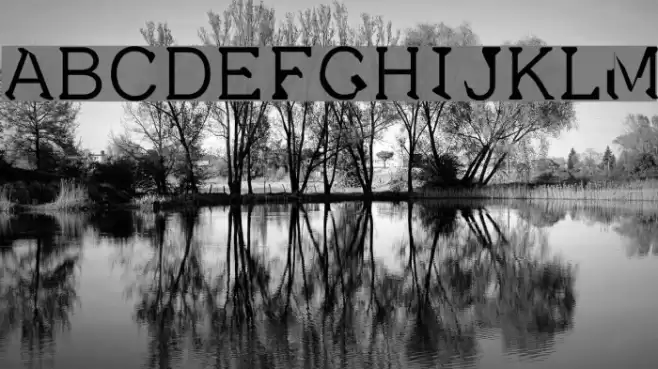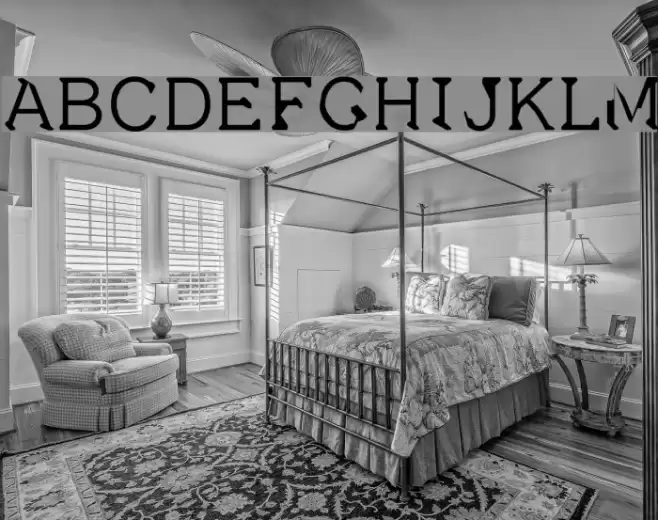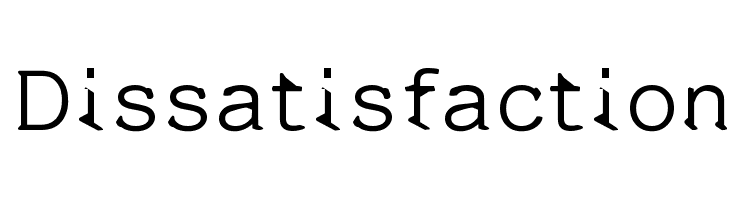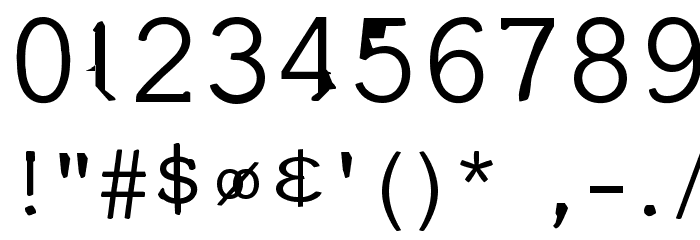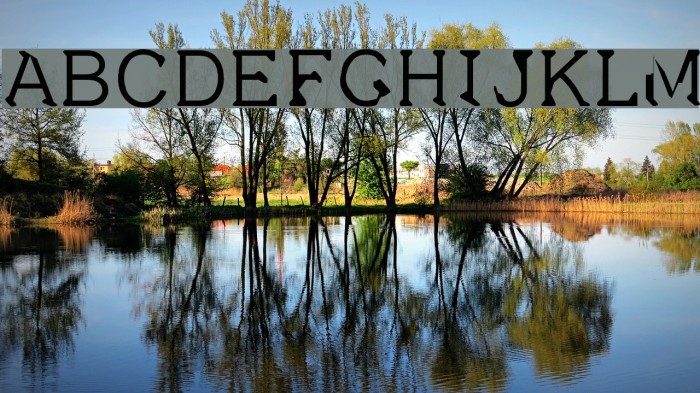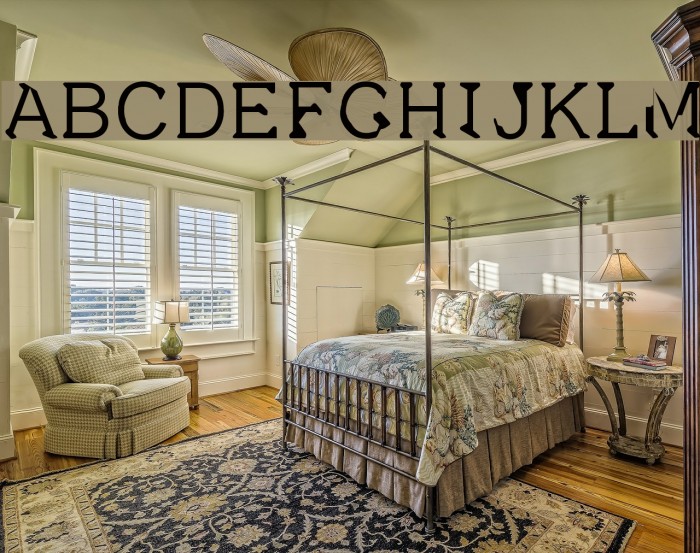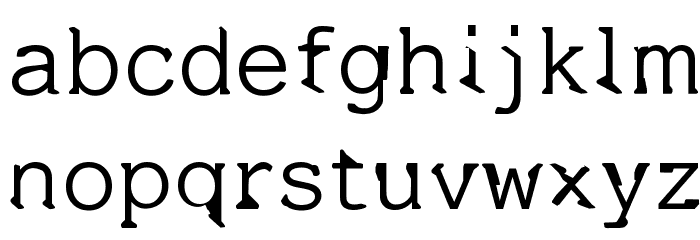
Dissatisfaction Font
Dissatisfaction Description
This font features a unique and playful design with a serif style that incorporates quirky, unexpected elements in its letterforms. The characters have a whimsical and slightly irregular appearance, giving them a handcrafted feel. The uppercase letters are bold and prominent, while the lowercase letters maintain a consistent style with slight variations that add character. The numerals are clear and easy to read, with a similar playful touch. Special characters are well-integrated, maintaining the overall aesthetic. This font stands out with its distinctive personality, making it suitable for creative and artistic projects.
A playful serif font with quirky, handcrafted elements from Typewriter fonts.
- Proposed Projects: Ideal for creative projects such as children's books, artistic posters, and unique branding materials.